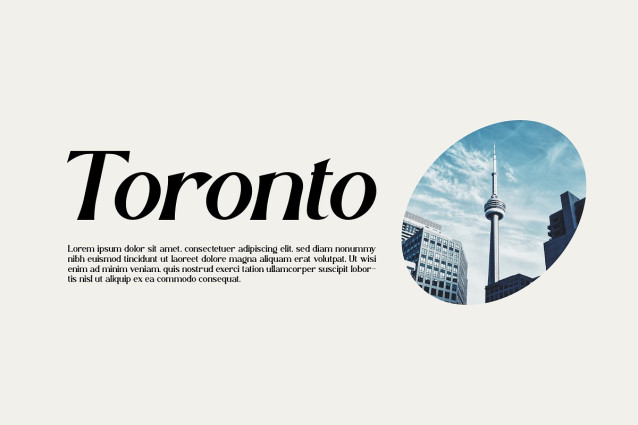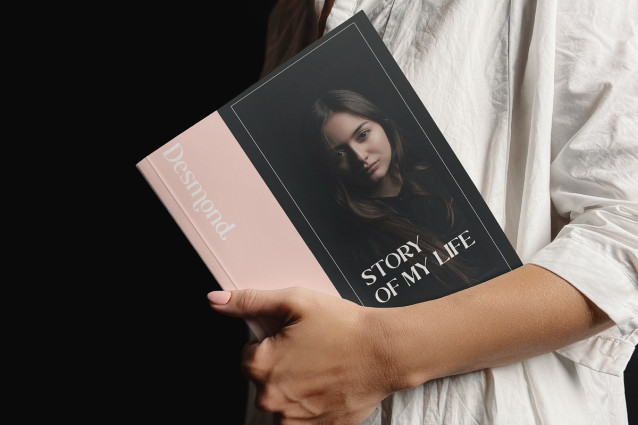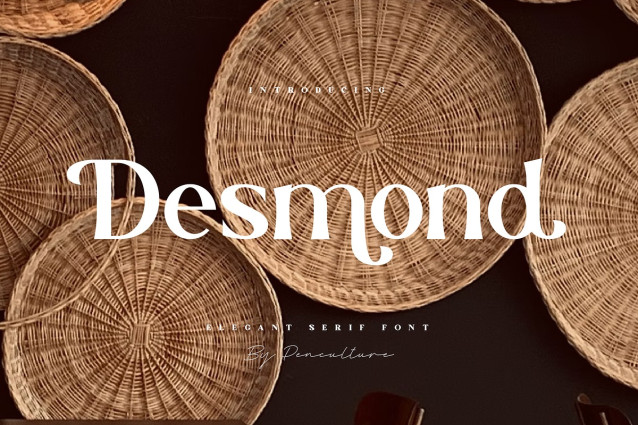
Desmond Font
Desmond Font is elegant with retro style serif font. This font has more than 40 beautiful alternate which is very easy for you to access. Desmond will be perfect for branding, logo design, websites, fashion, magazines, posters and many more.